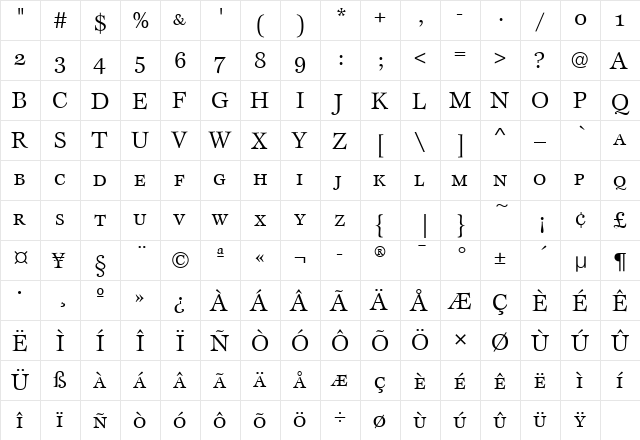
EspritSCITC Medium
Design Context for EspritSCITC Typeface
EspritSCITC is a composed and adaptable typeface that performs quietly and consistently across a wide range of design contexts.